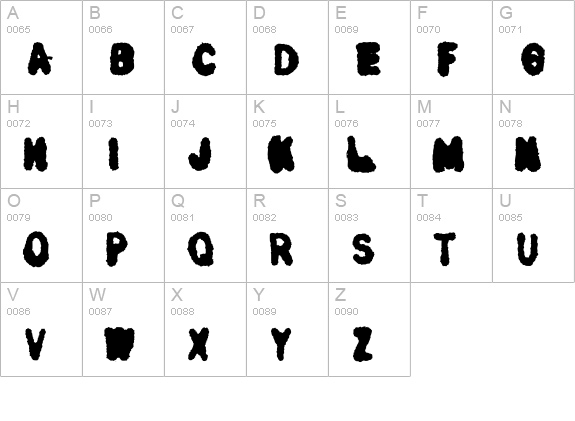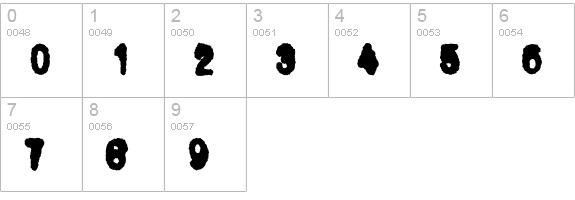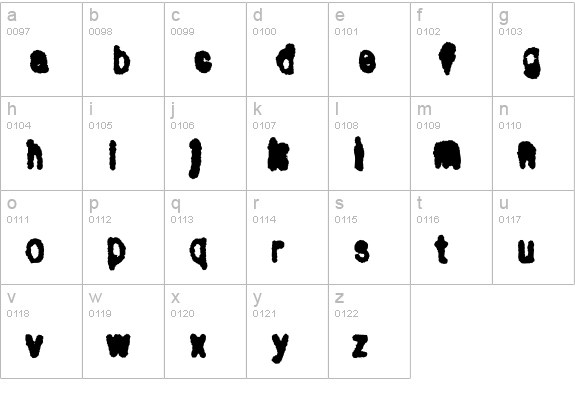
Introducing Bull-OverInked font, a unique and eye-catching typeface that exudes boldness and creativity. This font features rugged edges and a distressed look, making it perfect for adding a touch of edginess to your designs. Whether you're working on posters, logos, or branding materials, Bull-OverInked will make your text stand out with its distinctive style. The best part? Bull-OverInked font is completely free to download at FontsMarket.com. Don't miss out on this opportunity to enhance your projects with a font that truly makes a statement. Download Bull-OverInked today and unleash your creativity!